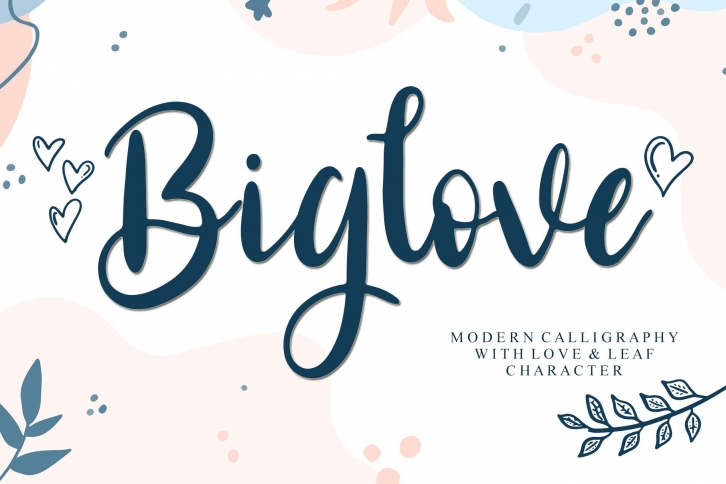
Biglove is a beautiful font that was designed by Letterafa Studio. It's a great choice for designers and creatives who need such a font. It was released on January 3, 2022 and the file size is 10.99 MB. Biglove may give a more youthful, expressive and casual look to your project. It is a very beautiful, refined, elegant, and high-quality font.